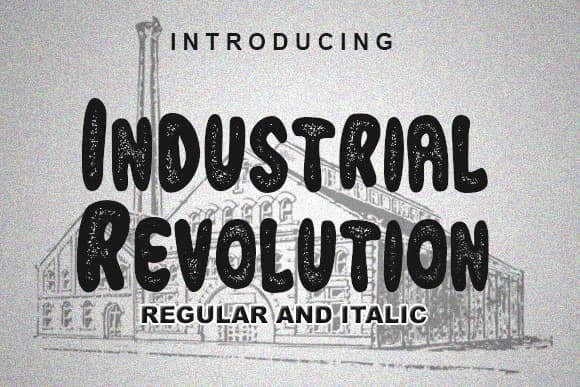
Industrial Revolution by vladimirnikolic is a striking handwritten script typeface that channels the boldness and mechanical spirit of industrial design. Available in both regular and italic weights, this versatile family brings authentic period character to work that celebrates vintage aesthetics and nostalgic visual storytelling. The font's distinctive letterforms work particularly well for vintage poster design projects that need genuine industrial-era authenticity, steampunk-themed brand identities seeking visual impact, bespoke packaging for artisanal goods and craft enterprises, and heritage label designs for specialty products with distinctive vintage appeal.
The italic variation extends functionality by allowing designers to create emphasis and contrast within single layouts while maintaining consistent design cohesion throughout their work. This makes it equally suitable for historical document recreations, speakeasy-inspired menu designs, and vinyl record cover artwork that demands period-appropriate character and authenticity. Designers working on boutique product branding, alternative music event materials, or niche market identities will find the font's balance between mechanical precision and organic handwritten qualities particularly valuable and distinctive.
- Elegant, Flowing, Industrial Revolution
Industrial Revolution Font is a script font that shines as a display or heading face. Pair it with a clean sans-serif or serif font for body text — the contrast creates a clear hierarchy while the two styles stay balanced and easy to read.